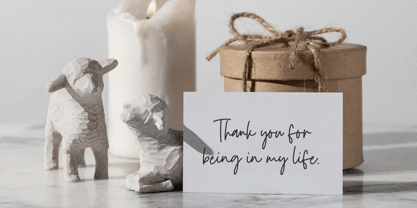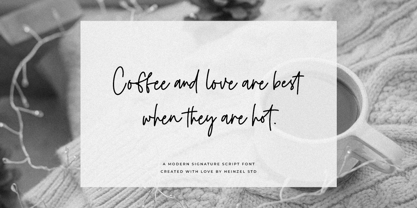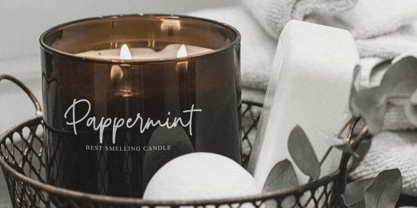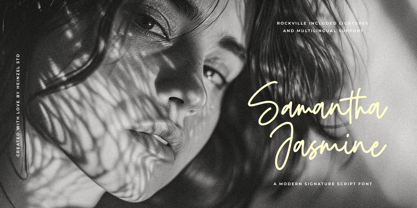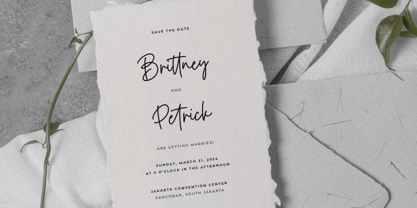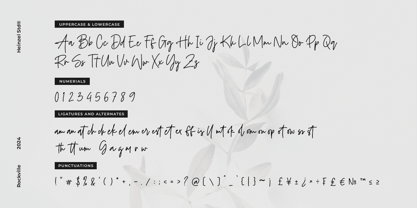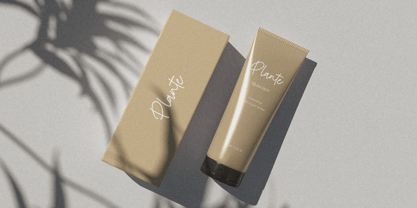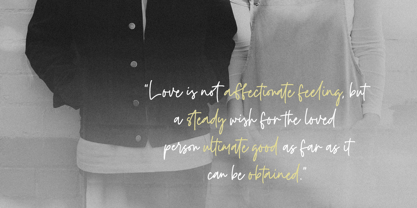
Rockville
by Heinzel Std
The Rockville Font Family was designed by Nofi Sofyan Hadi and published by Heinzel Std. Rockville contains 1 styles. More about this family
Rockville is a modern signature script font, described by an elegant touch, perfect for your favorite projects. It looks stunning on wedding invitations, thank you cards, quotes, greeting cards, logos, business cards, and every other design that needs a handwritten touch. Fall in love with its incredibly distinct and timeless style and use it to create spectacular designs!
Designers: Nofi Sofyan Hadi
Foundry: Heinzel Std